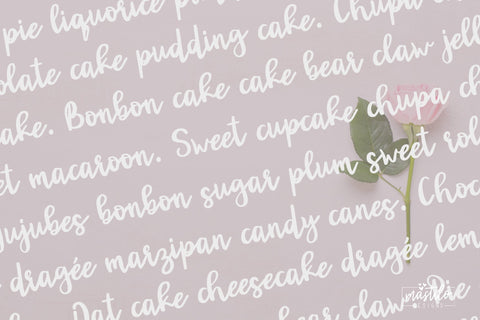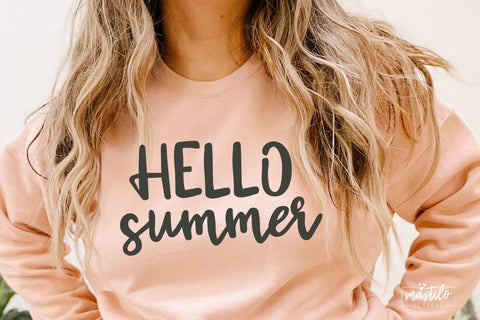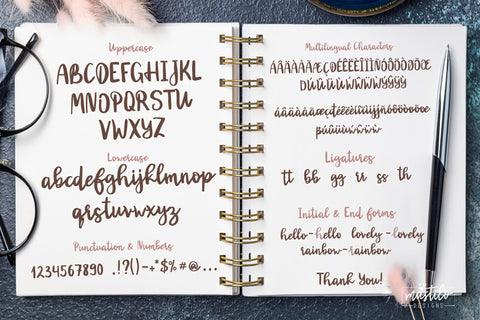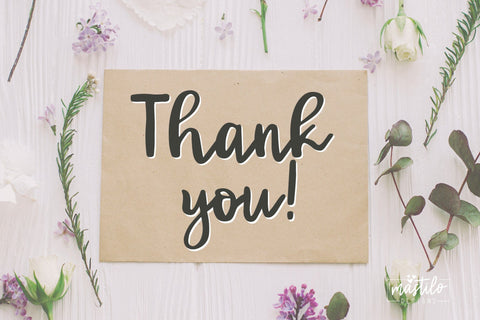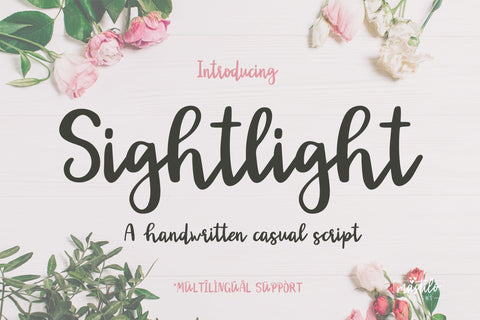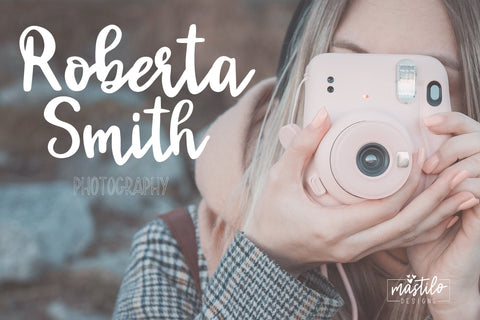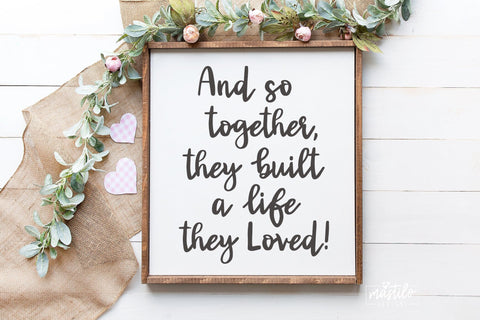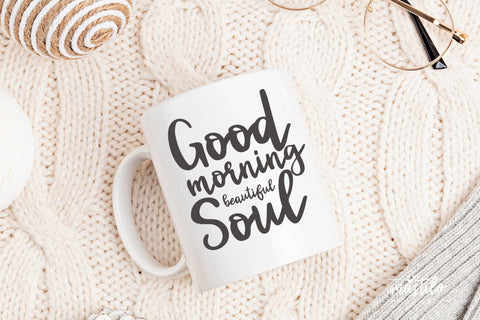
Handwritten Script Font, Sightlight - Cursive Font
Introducing Sightlight, a casual hand written script font with plenty of stylistic ligatures making it a versatile font, with possibilities for use for all your projects.
With a multilingual support this font makes a great addition to your font book.
Use it to design logos + branding, apparel, stickers, phone cases, home decor, social media templates and instagram quotes, cricut and silhouette projects, procreate and so much more.
Sightlight Script font includes:
~ full upper + lowercase characters
~ numbers + punctuation
~ Western European Language Support
~ Plenty of ligatures, end and initial forms to play with